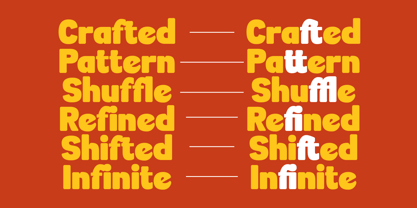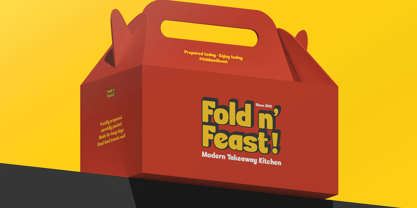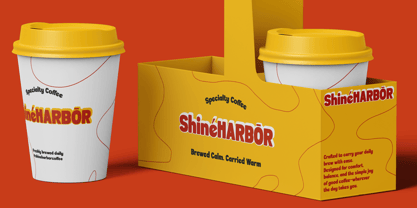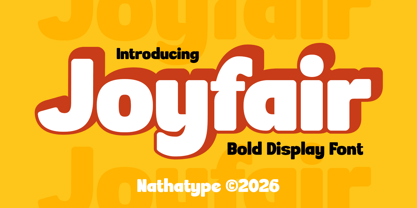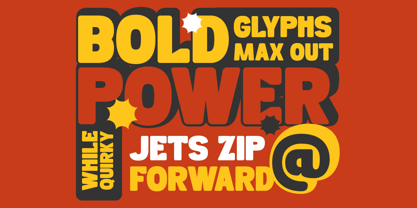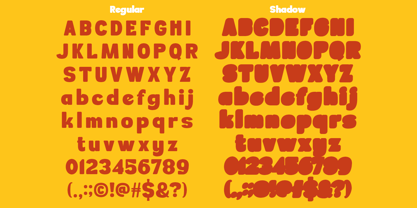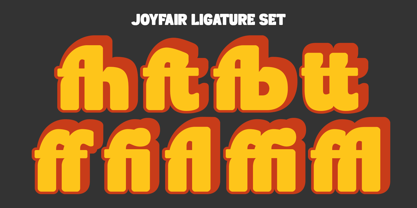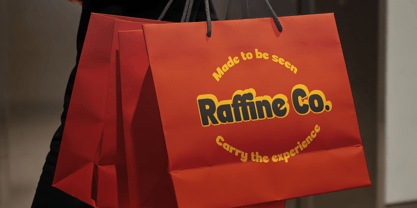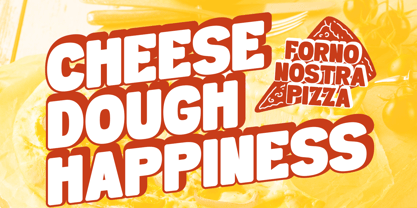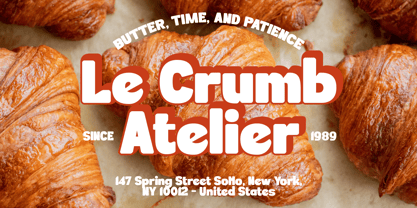
Joyfair
by Nathatype
The Joyfair Font Family was designed by Donis Miftahudin and published by Nathatype. Joyfair contains 2 styles and family package options. More about this family
Joyfair is a vibrant and modern bold display font designed to bring clarity, friendliness, and strong visual impact to your typography. Crafted with rounded shapes and consistent proportions, Joyfair offers a smooth, balanced appearance that feels both approachable and professional. It’s the perfect choice for designers looking for a bold typeface that delivers personality without sacrificing readability. In addition, enjoy the features here. Features: Ligatures Multilingual Supports PUA Encoded Numerals and Punctuations Joyfair fits in logos, quotes, branding, posters, and many more designs. Find out more ways to use this font by taking a look at the font preview. Thanks for purchasing our fonts. Hopefully, you have a great time using our font. Feel free to contact us anytime for further information or when you have trouble with the font. Thanks a lot and happy designing.